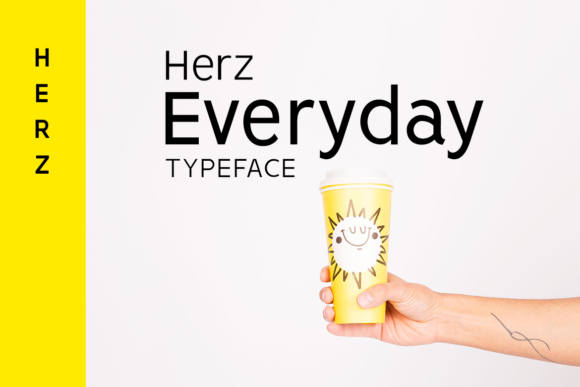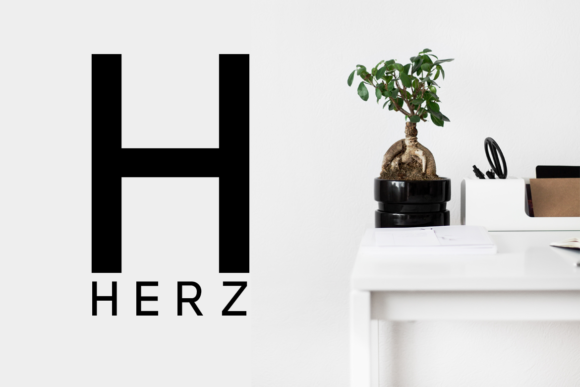
Introduction to Herz Font
The Herz is a modern sans serif typeface.
It’s simple, yet very detailed and comes in a regular, light, and bold version .
Key Features of Herz Font